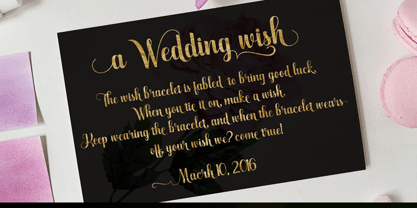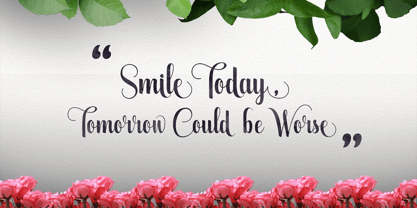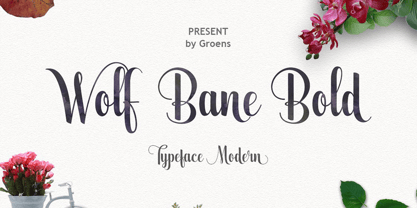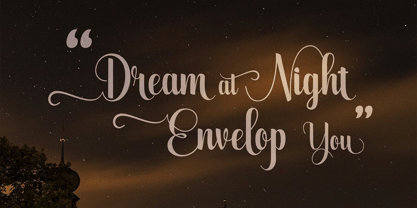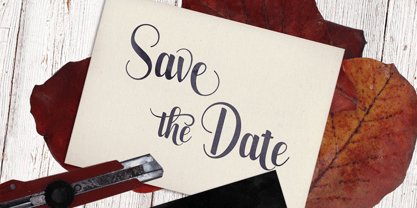
Wolf Bane Pro
by Groen Studio
The Wolf Bane Pro Font Family was designed by Sai Poel and published by Groen Studio. Wolf Bane Pro contains 1 styles. More about this family
Wolfs Bane Bold is a brush script that is beautiful and unique, it is a model of modern calligraphy typefaces, in combination with a calligraphy writing style.